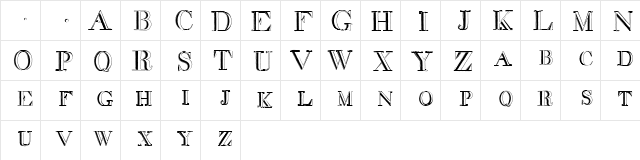
decadence in a different light Regular
Design Context for decadence in a different light Typeface
decadence in a different light is a composed and adaptable typeface that performs quietly and consistently across a wide range of design contexts. Its slender proportions lend an understated elegance to any composition.